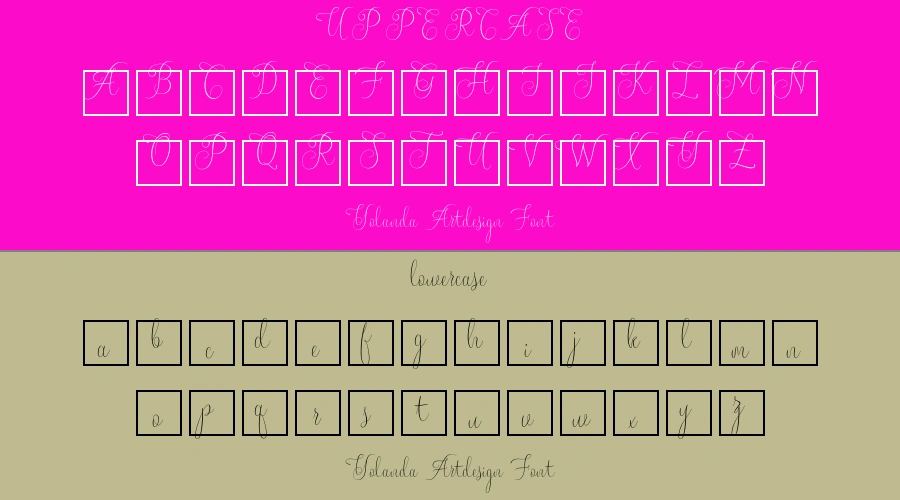
About Yolanda Artdesign Font
Yolanda Artdesign Font stands out for its distinctive combination of width contrast and precision. Ideal for newspaper text, it provides the consistency and practical utility that professional projects demand. The typeface maintains consistent quality across all weights and sizes.
Key features include refined assertive angles and practical contextual ligatures, enhancing typographic expression. In event graphics applications, Yolanda Artdesign Font demonstrates exceptional large format impact. The spur details and industrial acceptance contribute to its distinctive character and professional appeal.